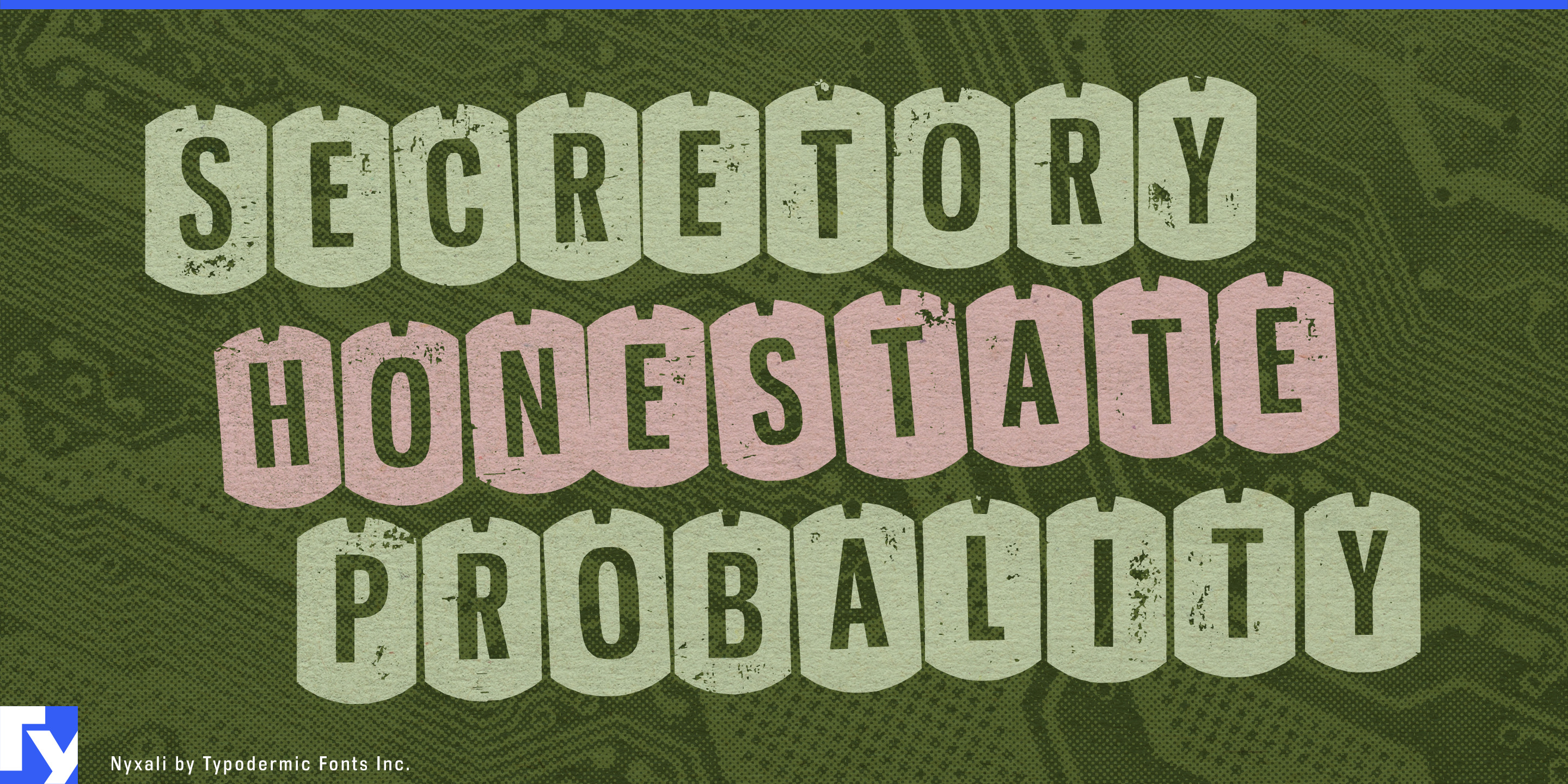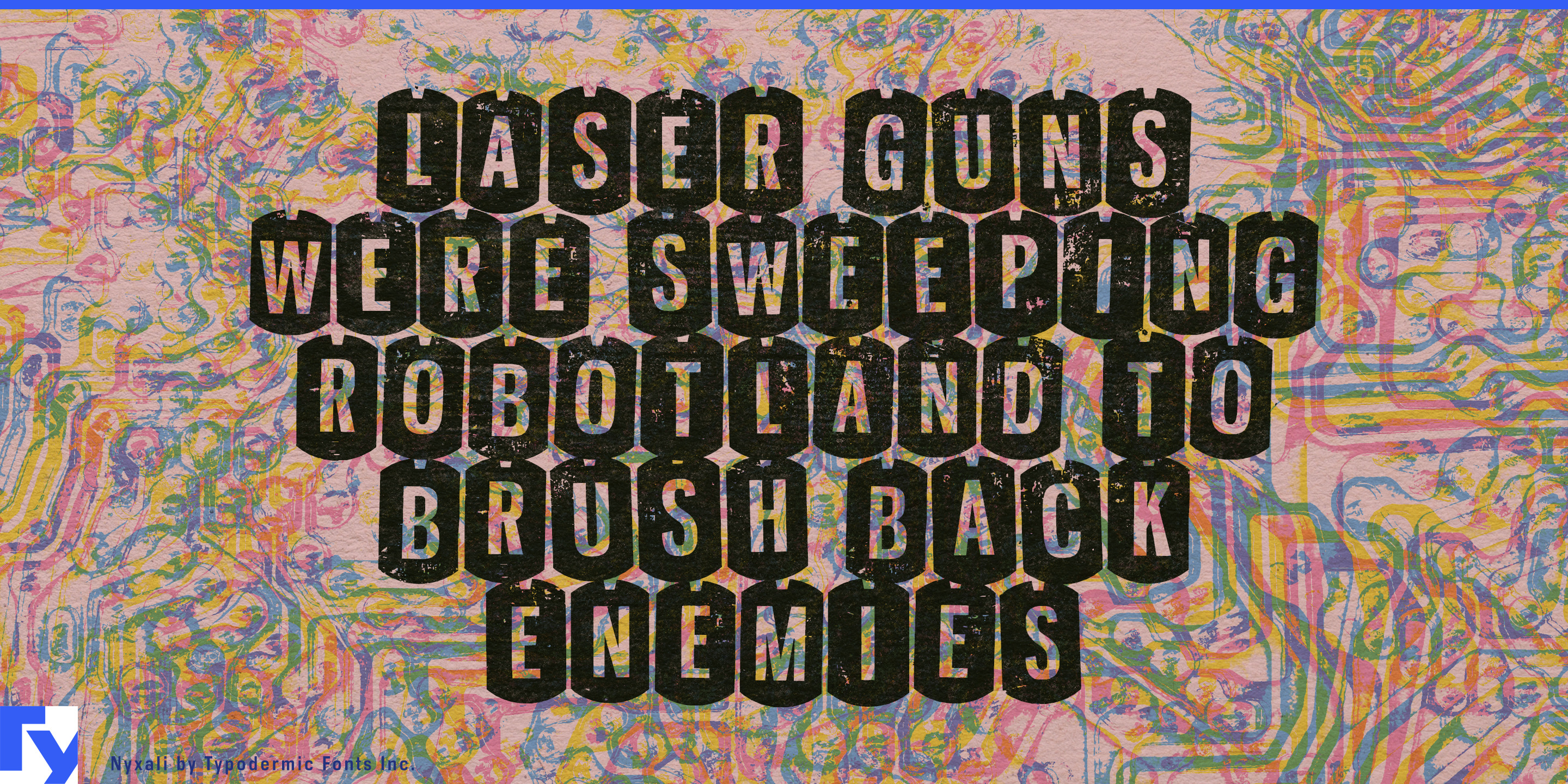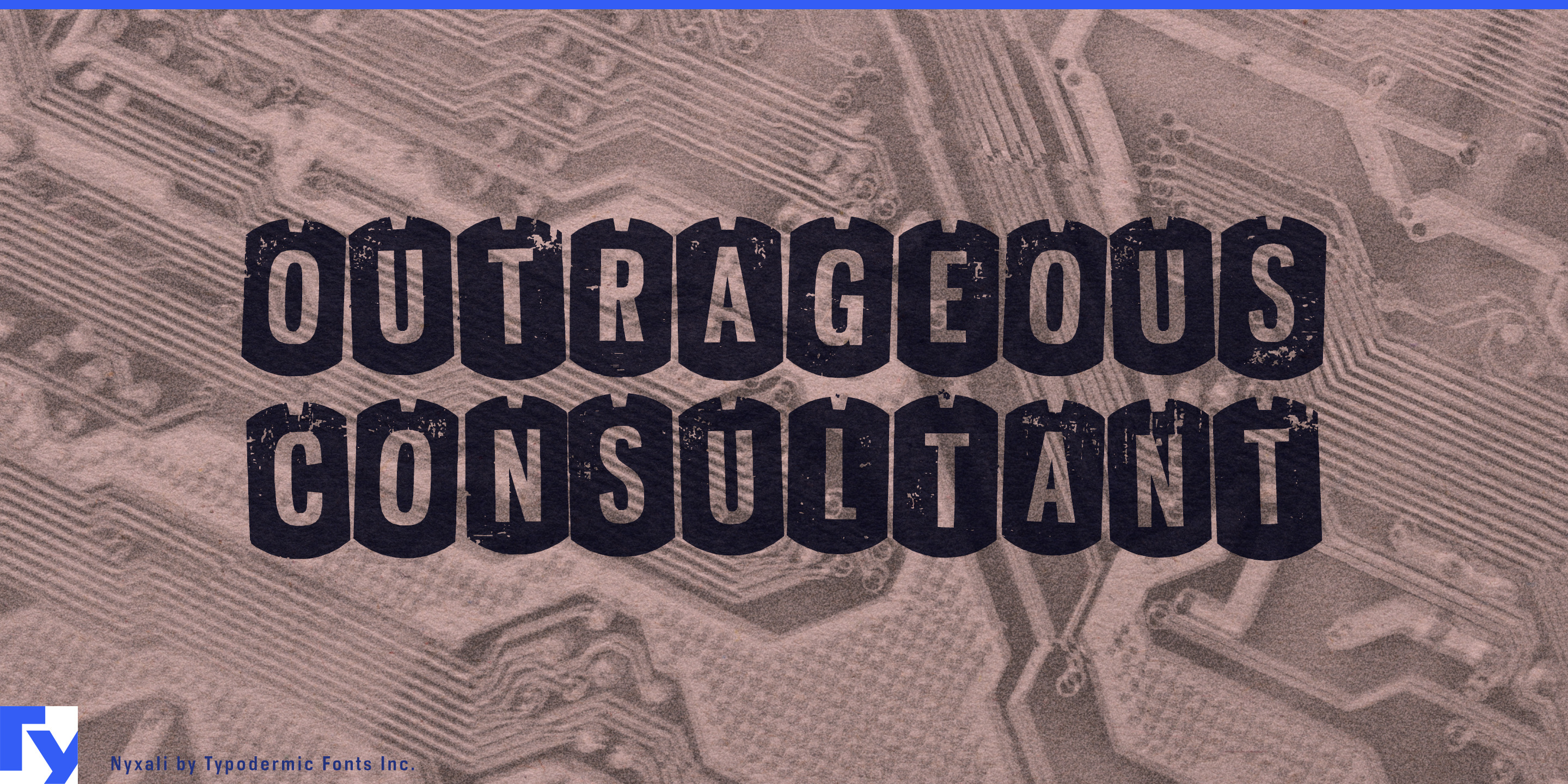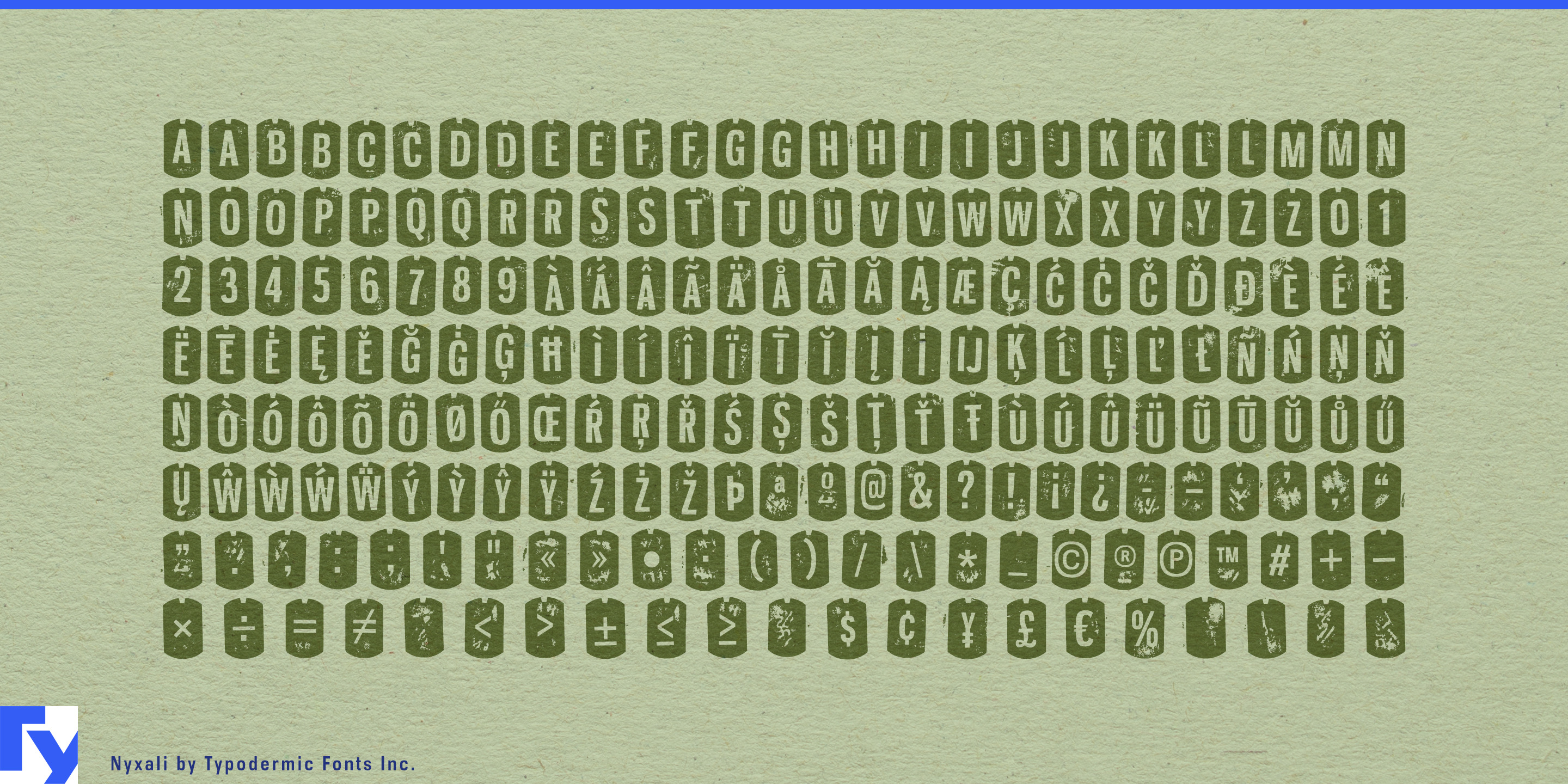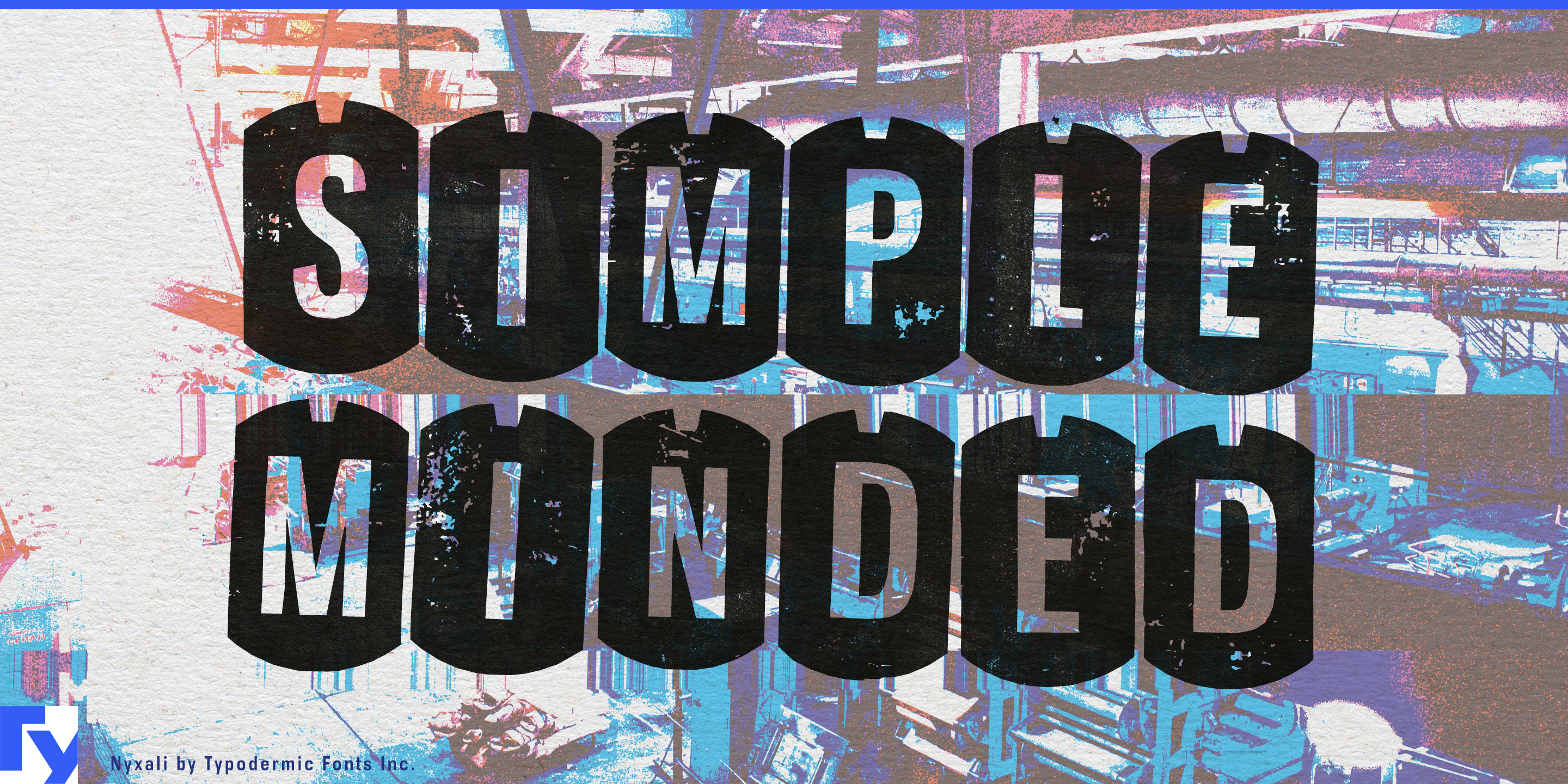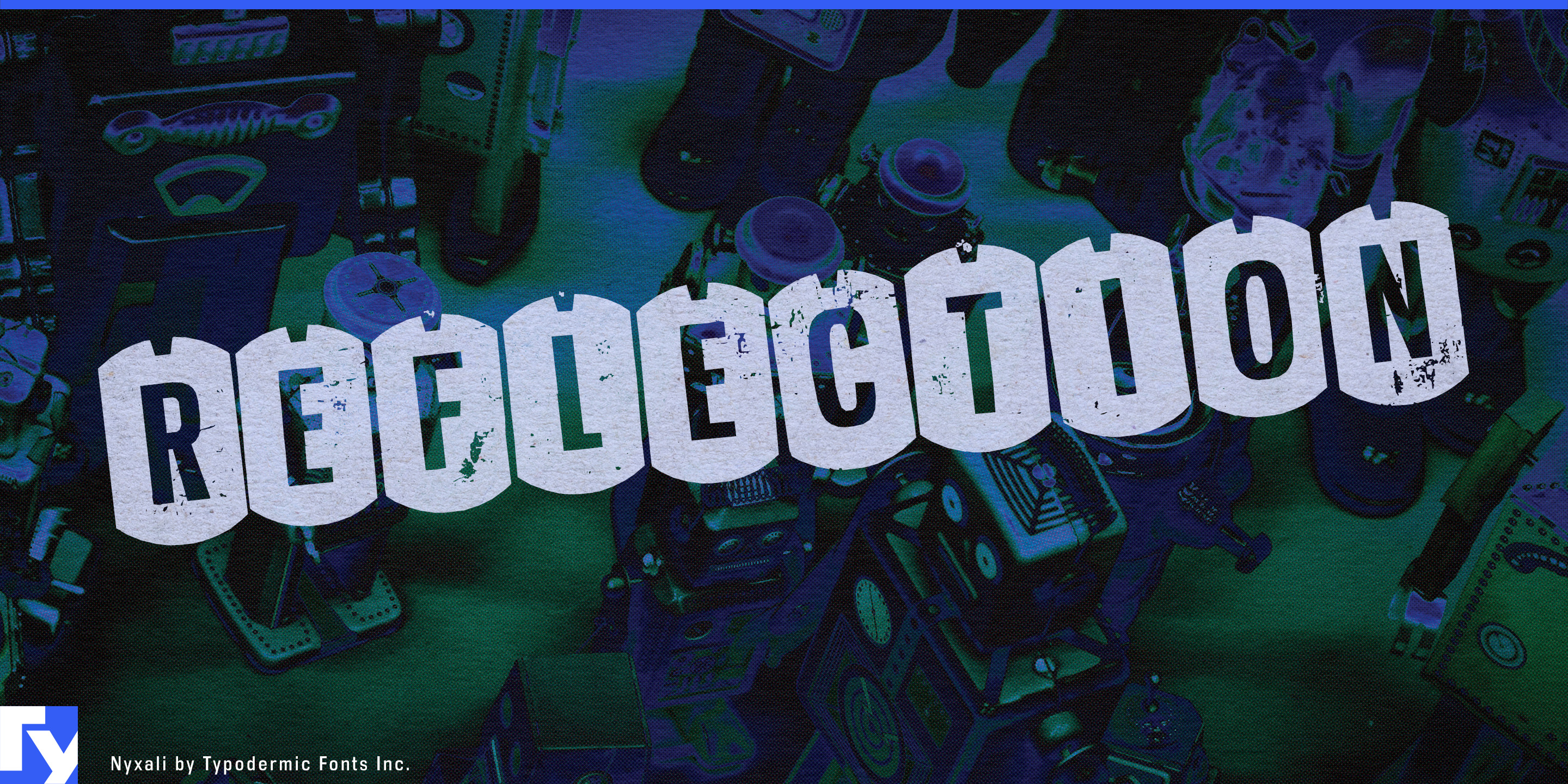
Nyxali
Nyxali makes every product name look as though it has passed through a machine no one can quite identify. Its condensed letters sit inside heavy, irregular shells, interrupted by index notches and linked through mechanical letter-pair ligatures. These forms were invented to imply a function without specifying one. They might be dies, indexing tabs, replaceable slugs, or components from an obsolete packaging line. The system appears purposeful; its purpose remains unexplained.
That fabricated logic gives Nyxali a distinctive role on food and beverage packages. A typed name becomes a linked strip of stamped components, closer to a manufactured label plate than conventional lettering. Changing contours and varied connections keep longer names from becoming a repetitive row of tiles, while the condensed proportions suit tall cans, narrow labels, and crowded front panels.
Craft beer is a natural setting for this machinery, especially imperial stouts, smoked porters, strong ales, and limited batches named after metallurgy, combustion, pressure, corrosion, or industrial accidents. The linked shells can carry a principal name across a can, bottle label, tap badge, or carton as a self-contained graphic.
Hot-sauce packaging gives the construction an equally direct job. Nyxali can handle sauce names, heat classifications, variety bands, and fermentation batches. Its battered forms suggest crushing, grinding, pressure, and processing without relying on flames, sweating skulls, or cartoon peppers. The same approach extends to spice-rub tins, barbecue sauces, jerky bags, roasted-coffee labels, energy drinks, aggressively flavoured snacks, and chocolate built around high cacao, chili, smoke, or salt.
Nyxali’s distress was designed rather than inherited from a real piece of equipment, so it need not pretend to be an authentic factory relic. Lot numbers, flavour codes, hazard bands, pressure ratings, and inspection marks can extend its fictional production system without explaining it too neatly. At display sizes, even an unmodified word can resemble a custom die-cut plate produced for some obscure industrial purpose.